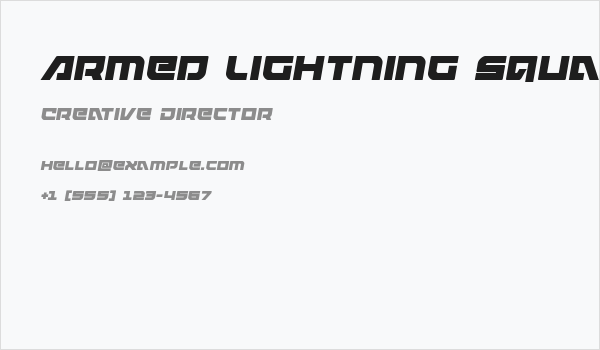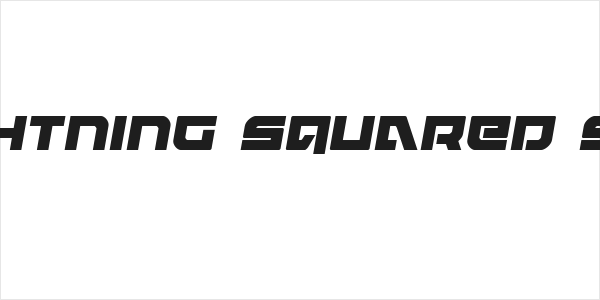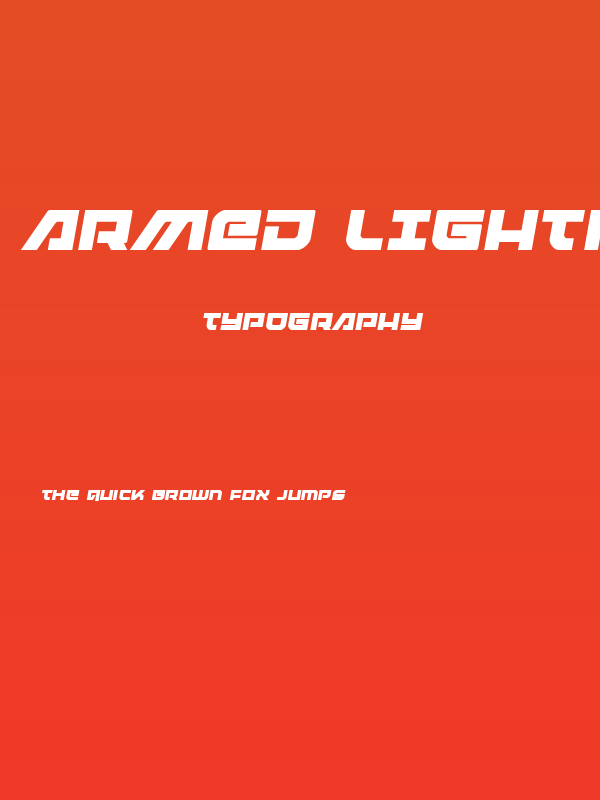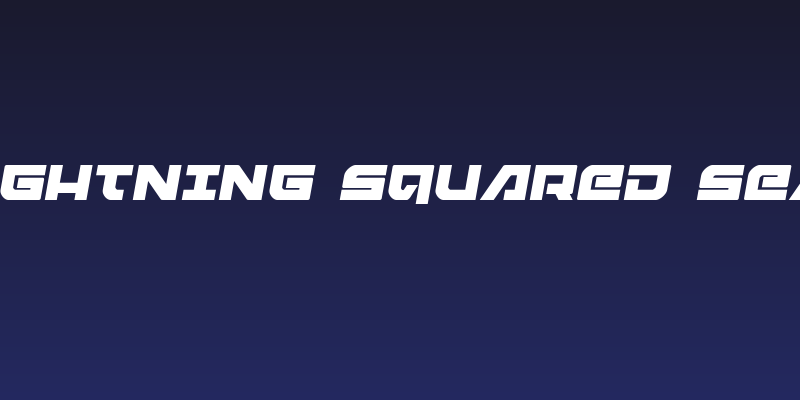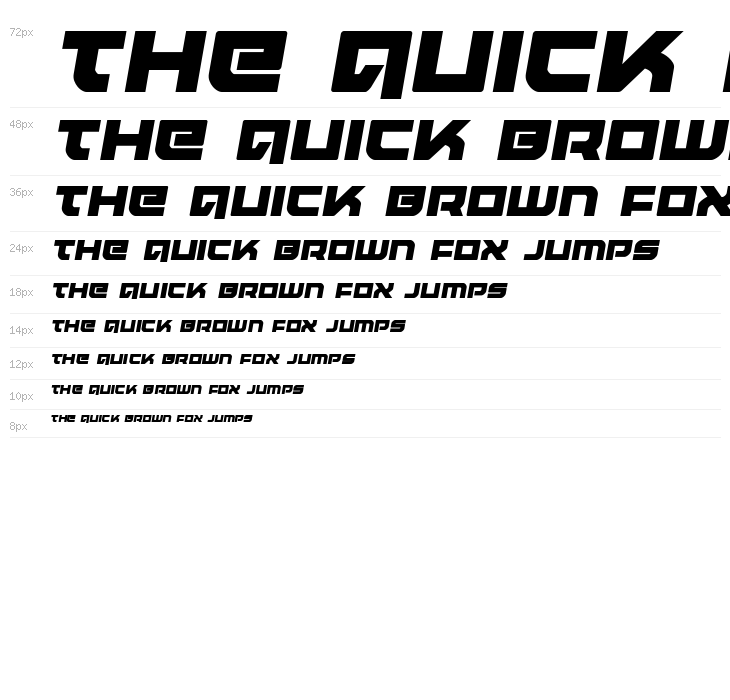
Armed Lightning Squared Semi-Italic Font
Armed Lightning Squared Semi-Italic Description
This font features a bold, angular design with a futuristic and dynamic feel. The characters are sharply defined with a squared-off appearance, giving them a strong and impactful presence. The semi-italic slant adds a sense of motion and speed, making it ideal for projects that require a modern and energetic look. The uppercase letters are particularly striking, with their geometric shapes and consistent stroke widths. The numerals and special characters maintain the same bold and angular style, ensuring a cohesive appearance across all text elements.
Proposed ProjectsIdeal for sports branding, technology logos, video game titles, and dynamic posters.